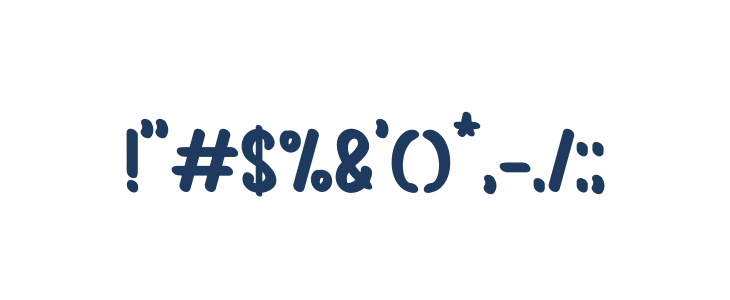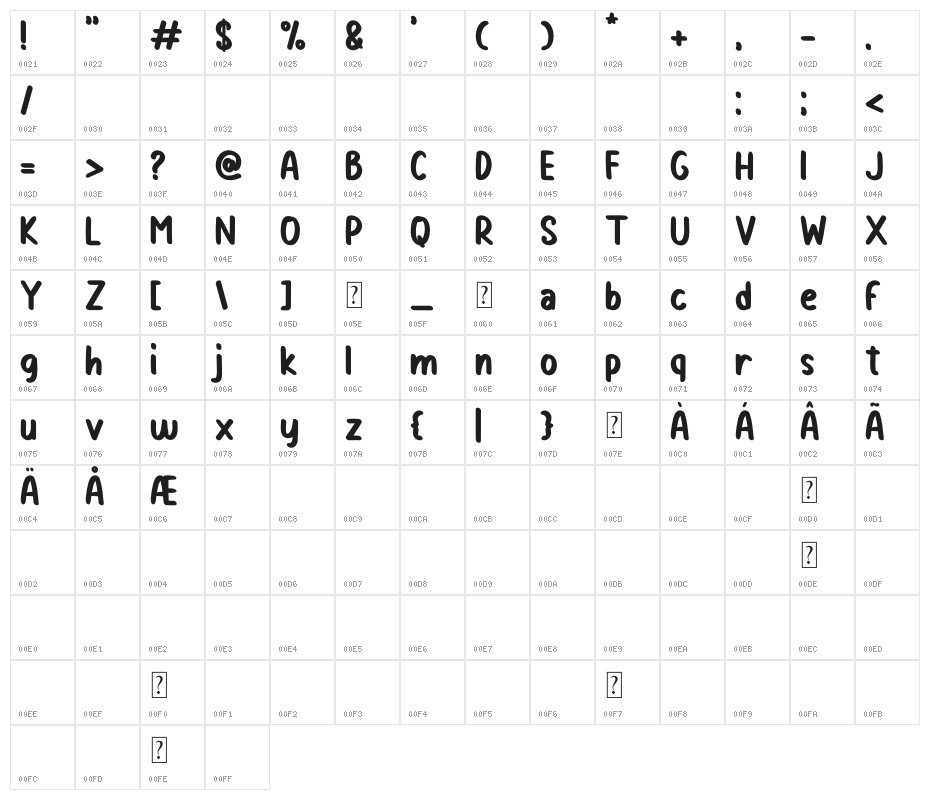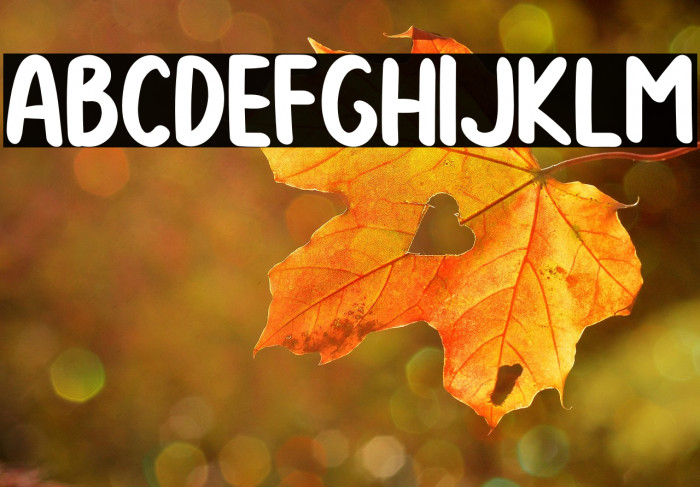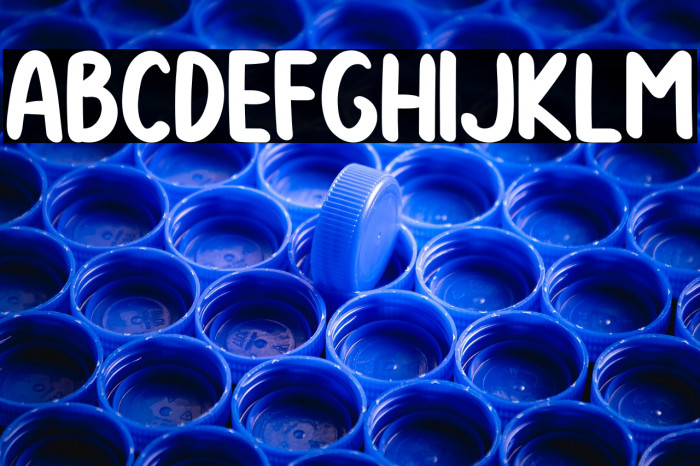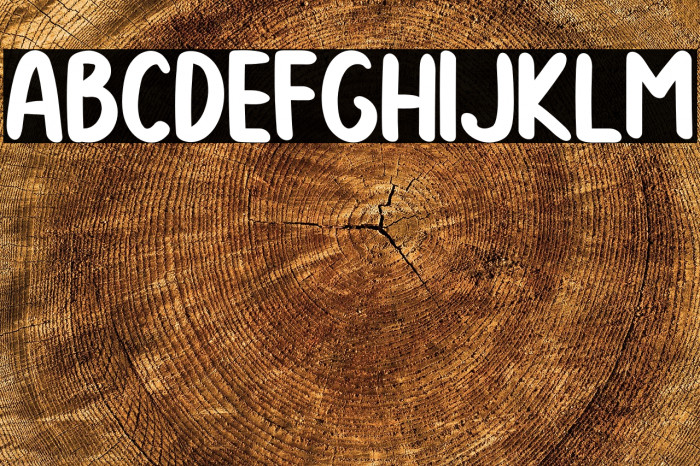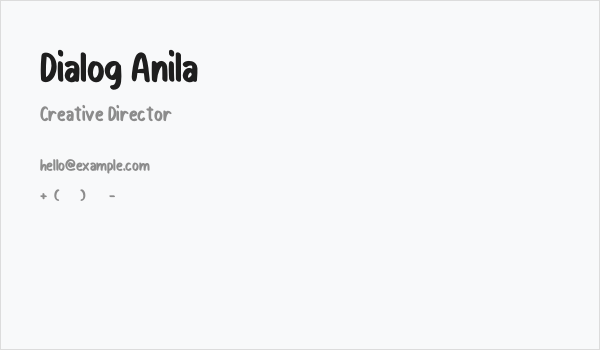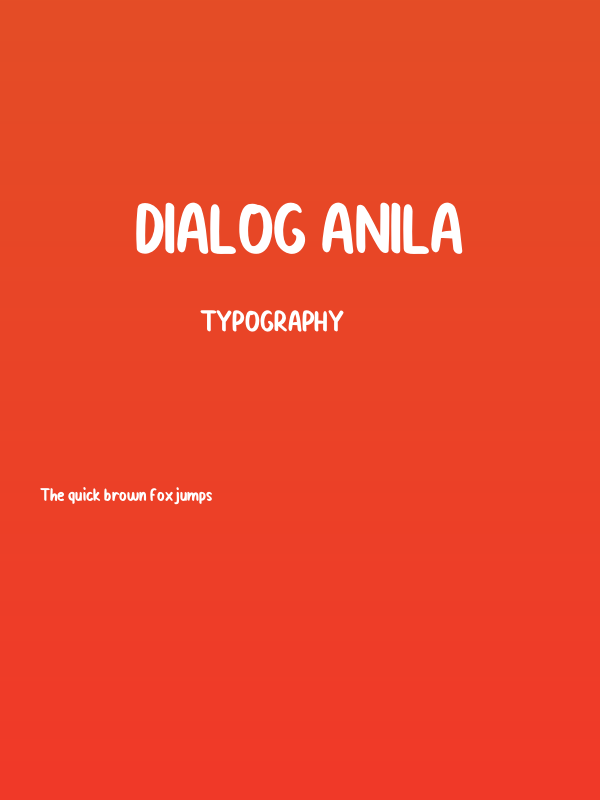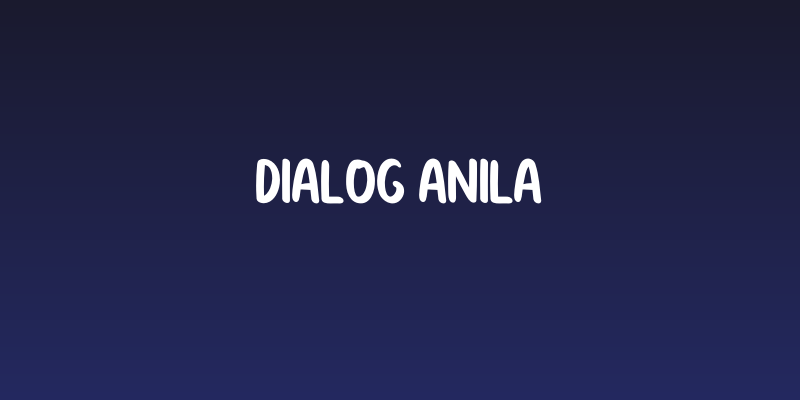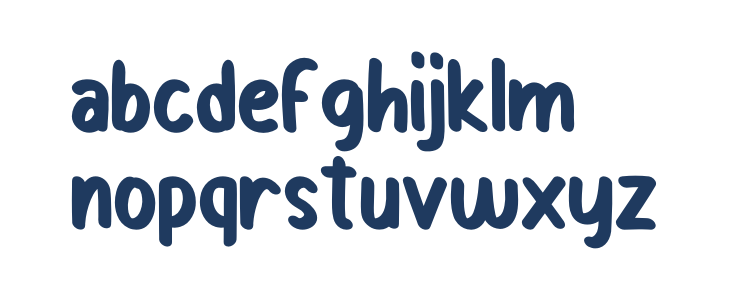
Dialog Anila Font
Dialog Anila Description
This font exhibits a playful and bold style with rounded edges and a handwritten feel. The characters are thick and uniform, providing a consistent and friendly appearance. The uppercase and lowercase letters maintain a cohesive look, with slight variations that add to the casual charm. The numerals and special characters are equally bold and rounded, ensuring readability and a harmonious design. This font is ideal for projects that require a touch of whimsy and approachability, making it suitable for children's books, playful branding, or informal invitations.
| Proposed Projects | Children's books, playful branding, informal invitations, greeting cards, and social media graphics. |